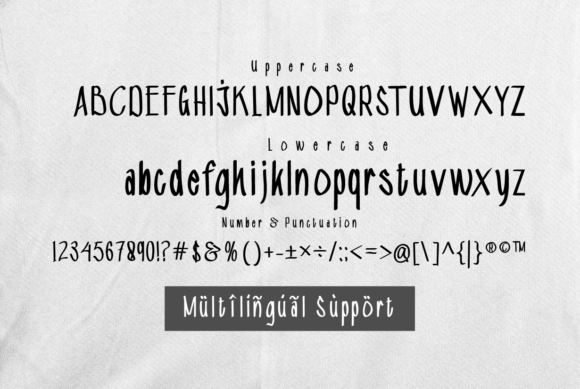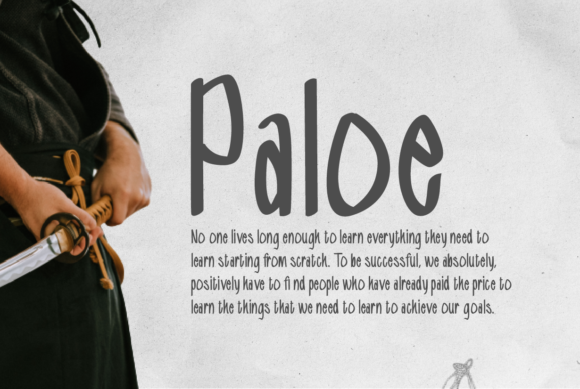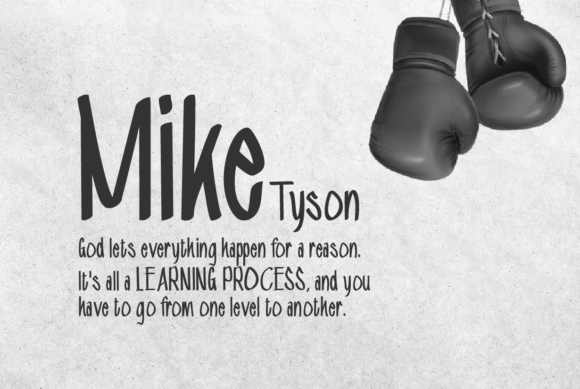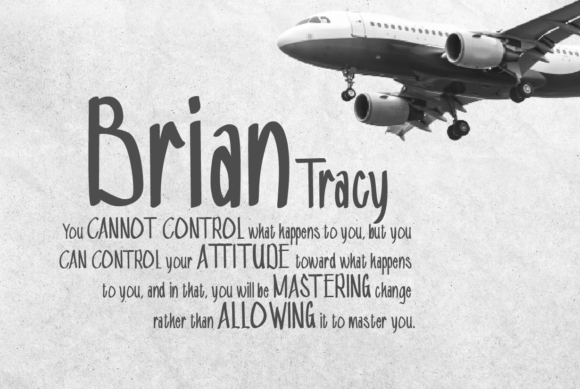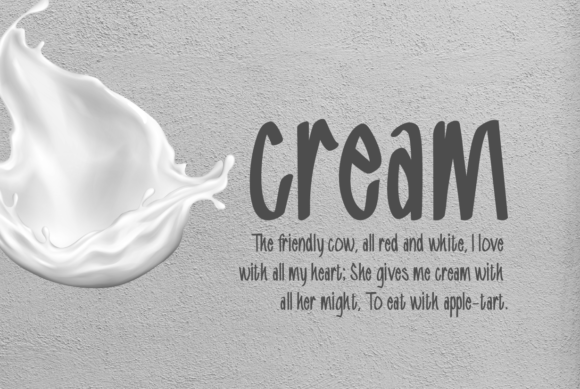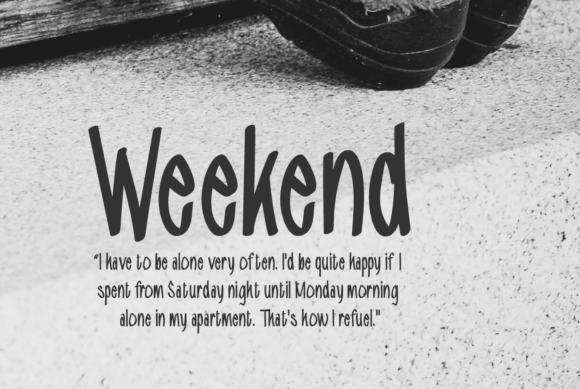
Introducing Grah Font: Elevate Your Crafting Ideas with a Clean and Friendly Handwritten Style
Are you a designer, crafter, or DIY enthusiast looking for a versatile and visually appealing font to enhance your projects? Look no further than Grah Font, a clean and friendly handwritten font that’s perfect for a wide range of creative endeavors. In this article, we’ll explore the features and benefits of Grah Font, and show you how it can elevate your crafting ideas, from cards and branding to labels and more.
What is Grah Font?
Grah Font is a beautifully designed handwritten font that’s characterized by its clean lines, friendly feel, and exceptional legibility. Its unique charm makes it an excellent choice for crafters and designers who want to add a personal touch to their projects. Whether you’re creating greeting cards, crafting labels, or developing a brand identity, Grah Font is the perfect companion to help you achieve your creative goals.
Key Features of Grah Font
- Clean and Friendly Design: Grah Font boasts a clean and friendly design that makes it easy to read and visually appealing.
- Handwritten Style: The font’s handwritten style adds a personal touch to your projects, making them stand out from the crowd.
- Versatile: Grah Font is suitable for a wide range of projects, including cards, branding, labels, and more.
- Easily Readable: The font’s exceptional legibility makes it perfect for both digital and print applications.
Benefits of Using Grah Font
So, why choose Grah Font for your crafting ideas? Here are just a few benefits of using this amazing font:
- Enhance Your Brand Identity: Grah Font can help you create a consistent and recognizable brand identity that resonates with your audience.
- Add a Personal Touch: The font’s handwritten style adds a personal touch to your projects, making them more relatable and engaging.
- Save Time: With Grah Font, you can quickly and easily create professional-looking projects without spending hours on design.
- Increase Creativity: The font’s versatility and charm can inspire you to try new ideas and explore different creative avenues.
How to Use Grah Font in Your Projects
Using Grah Font in your projects is easy and straightforward. Here are a few ideas to get you started:
- Greeting Cards: Add a personal touch to your greeting cards with Grah Font, perfect for birthdays, holidays, and special occasions.
- Branding: Use Grah Font to create a consistent brand identity across your marketing materials, including logos, business cards, and social media graphics.
- Labels: Create beautiful labels for your products, gifts, or storage containers with Grah Font.
- DIY Projects: Add a touch of personality to your DIY projects, such as scrapbooking, journaling, or crafting, with Grah Font.
In conclusion, Grah Font is an exceptional handwritten font that’s perfect for designers, crafters, and DIY enthusiasts looking to elevate their crafting ideas. Its clean and friendly design, versatility, and exceptional legibility make it an excellent choice for a wide range of projects. Whether you’re creating cards, branding, labels, or more, Grah Font is the perfect companion to help you achieve your creative goals. So why wait? Add Grah Font to your favorite creations and be amazed by the outcome!